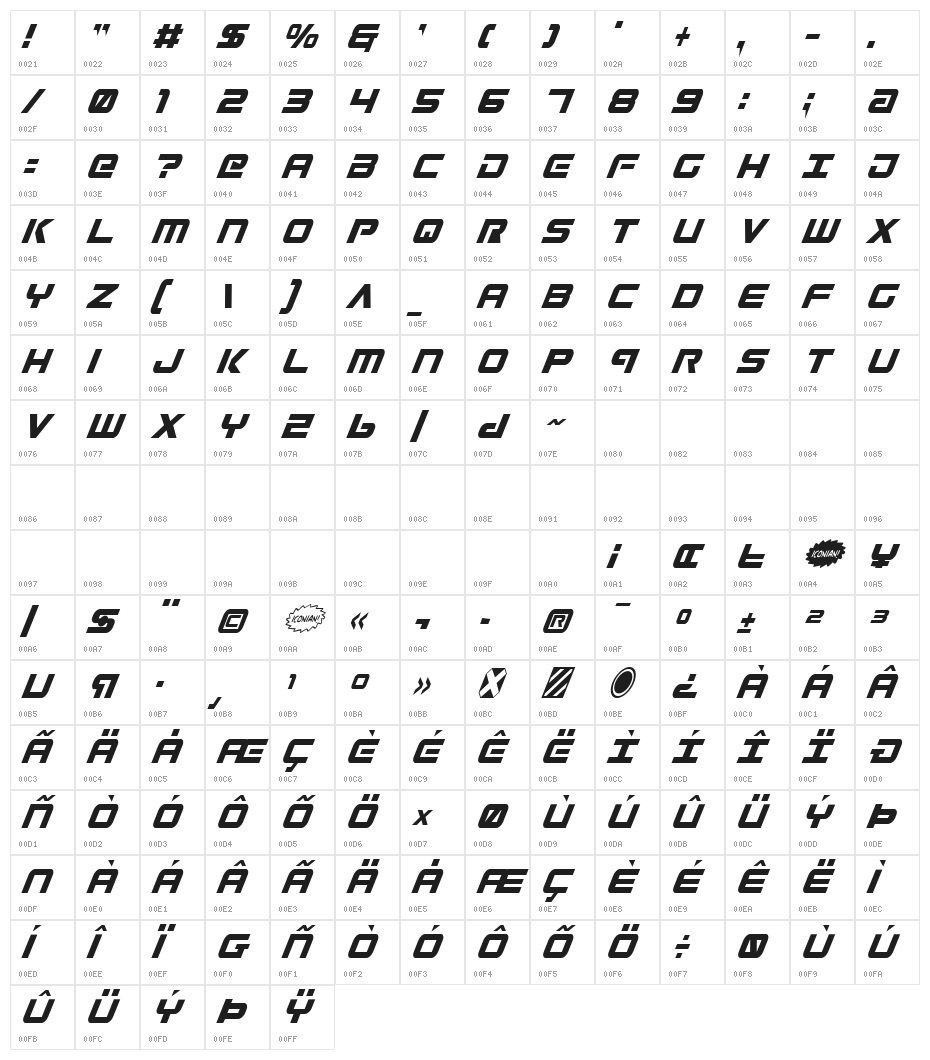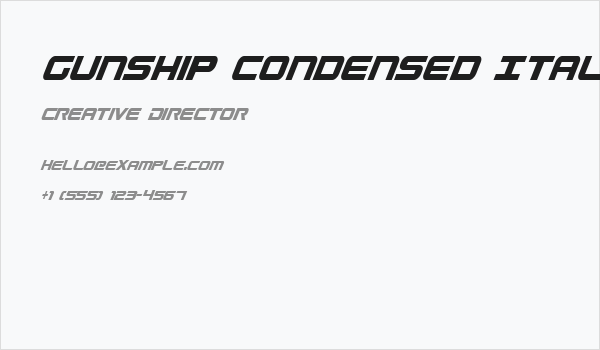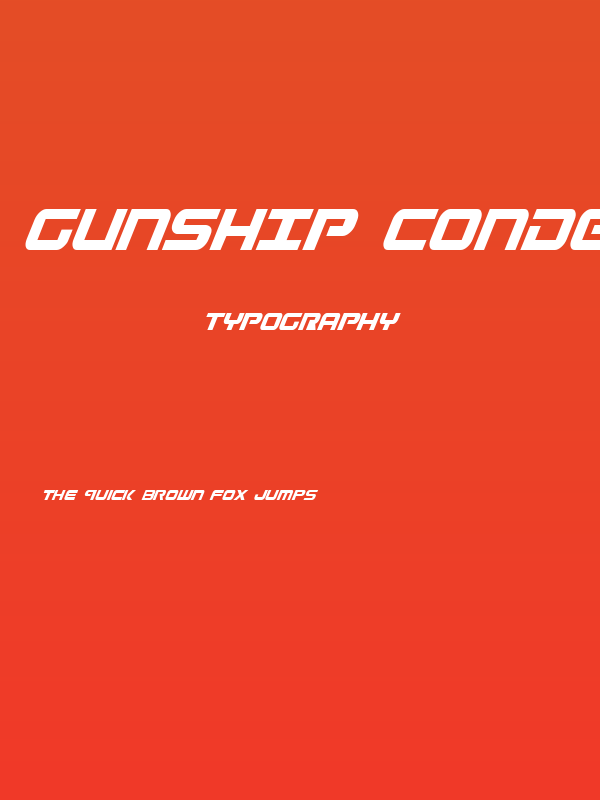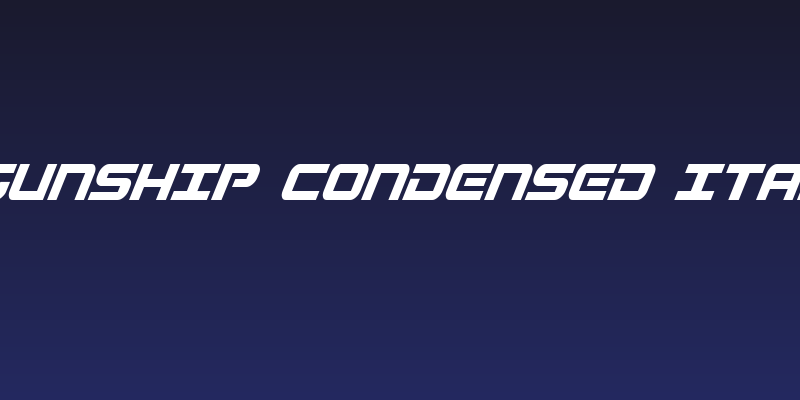
Gunship Condensed Ital Font
Gunship Condensed Ital Description
This font features a bold, futuristic design with a strong emphasis on angular shapes and sharp edges. The characters are condensed and italicized, giving a sense of speed and modernity. The uppercase and lowercase letters maintain a consistent style, with the lowercase letters mirroring the uppercase in form but slightly reduced in size. The numbers and special characters follow the same angular and condensed design, ensuring uniformity across all glyphs. This font's unique style makes it stand out, suitable for projects that require a modern and dynamic appearance.
| Proposed Projects | Ideal for sci-fi themed projects, video game titles, technology branding, and dynamic poster designs. |